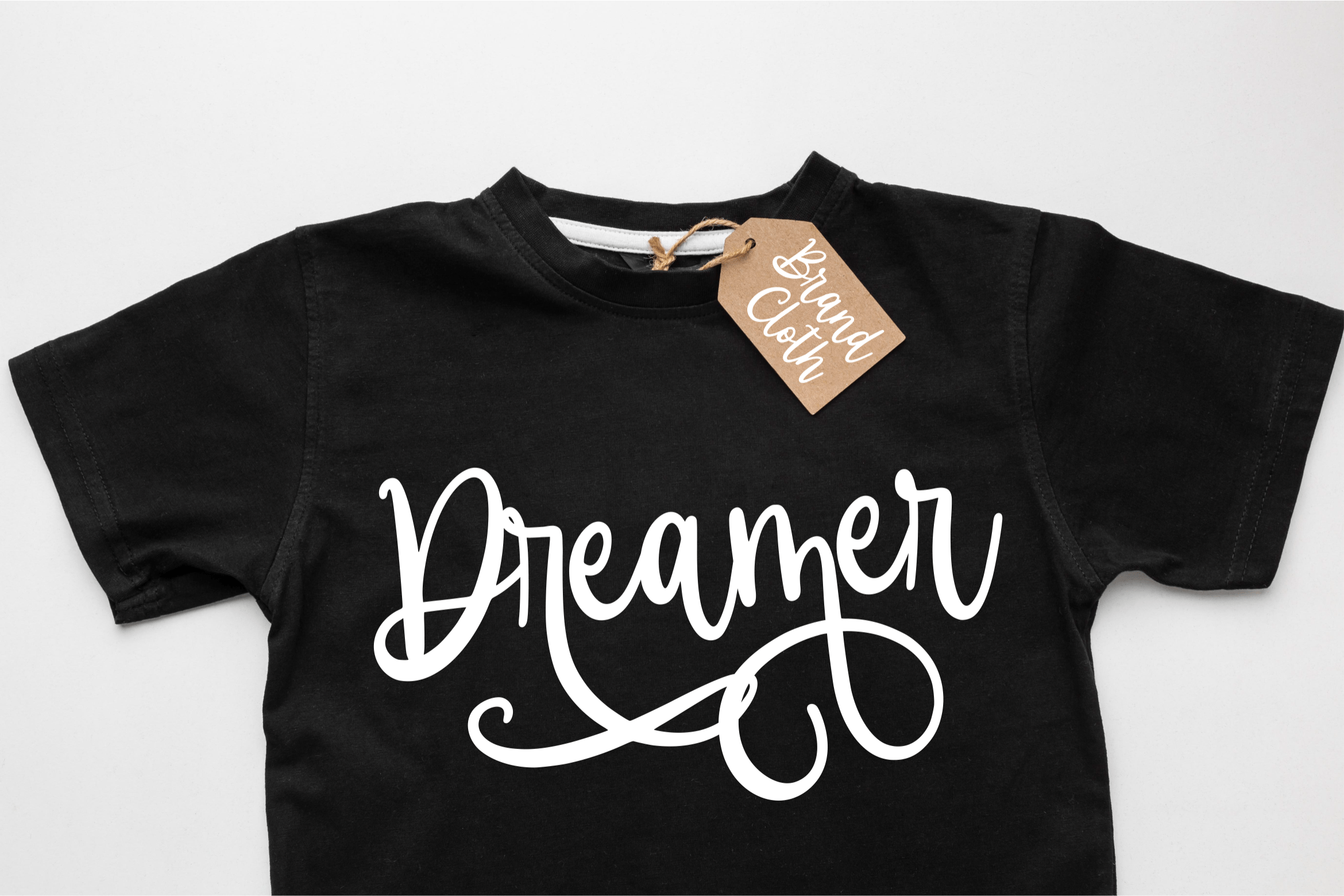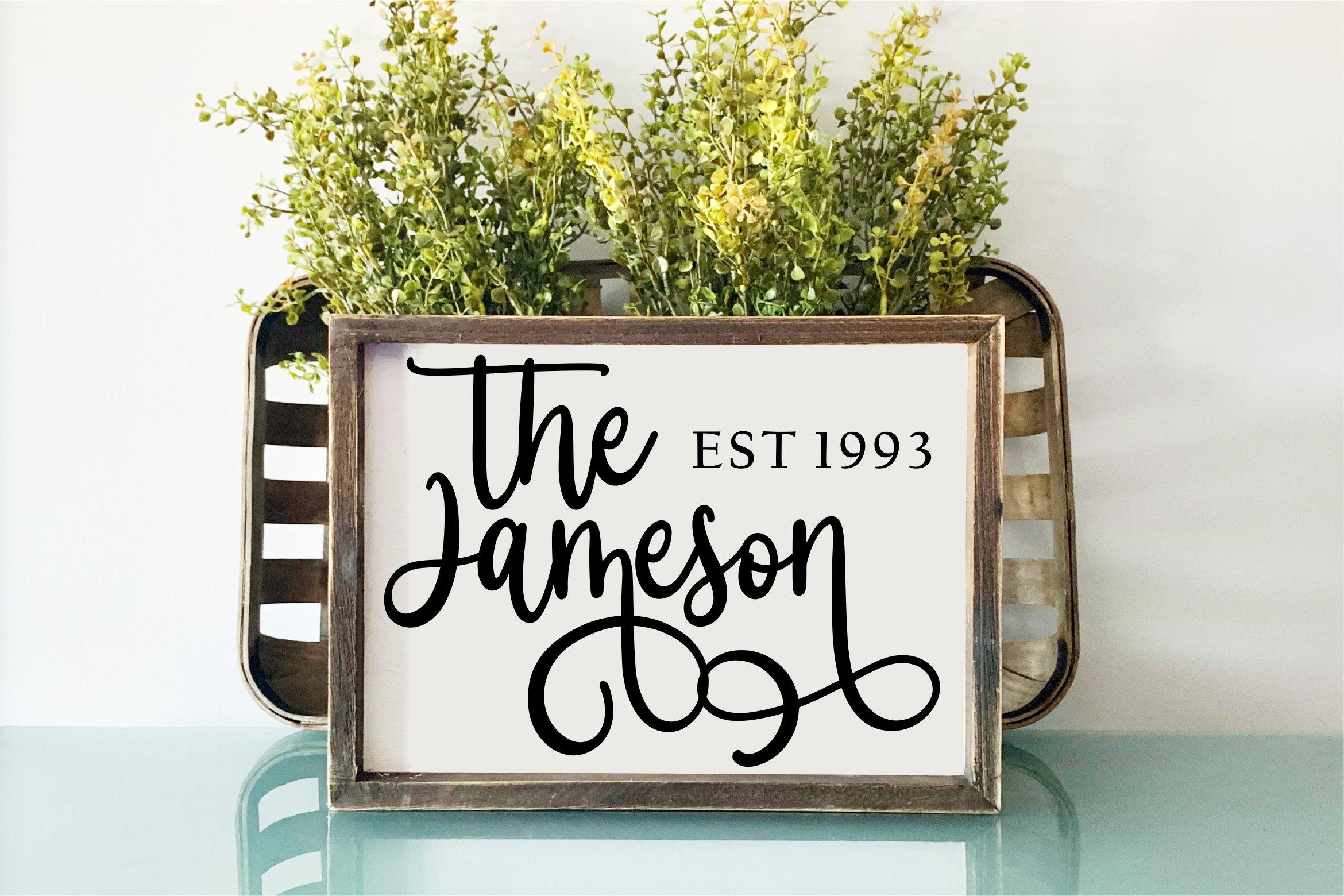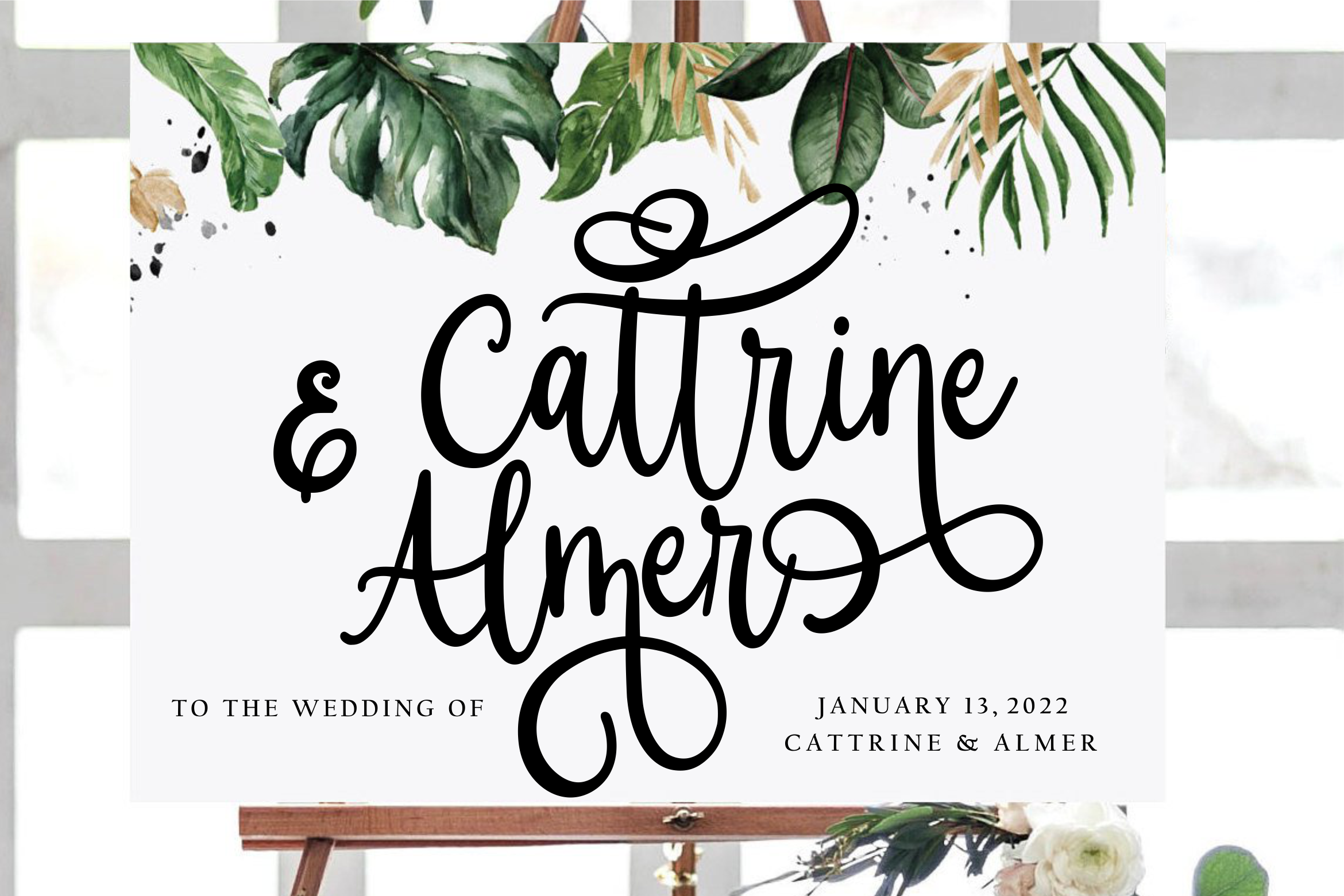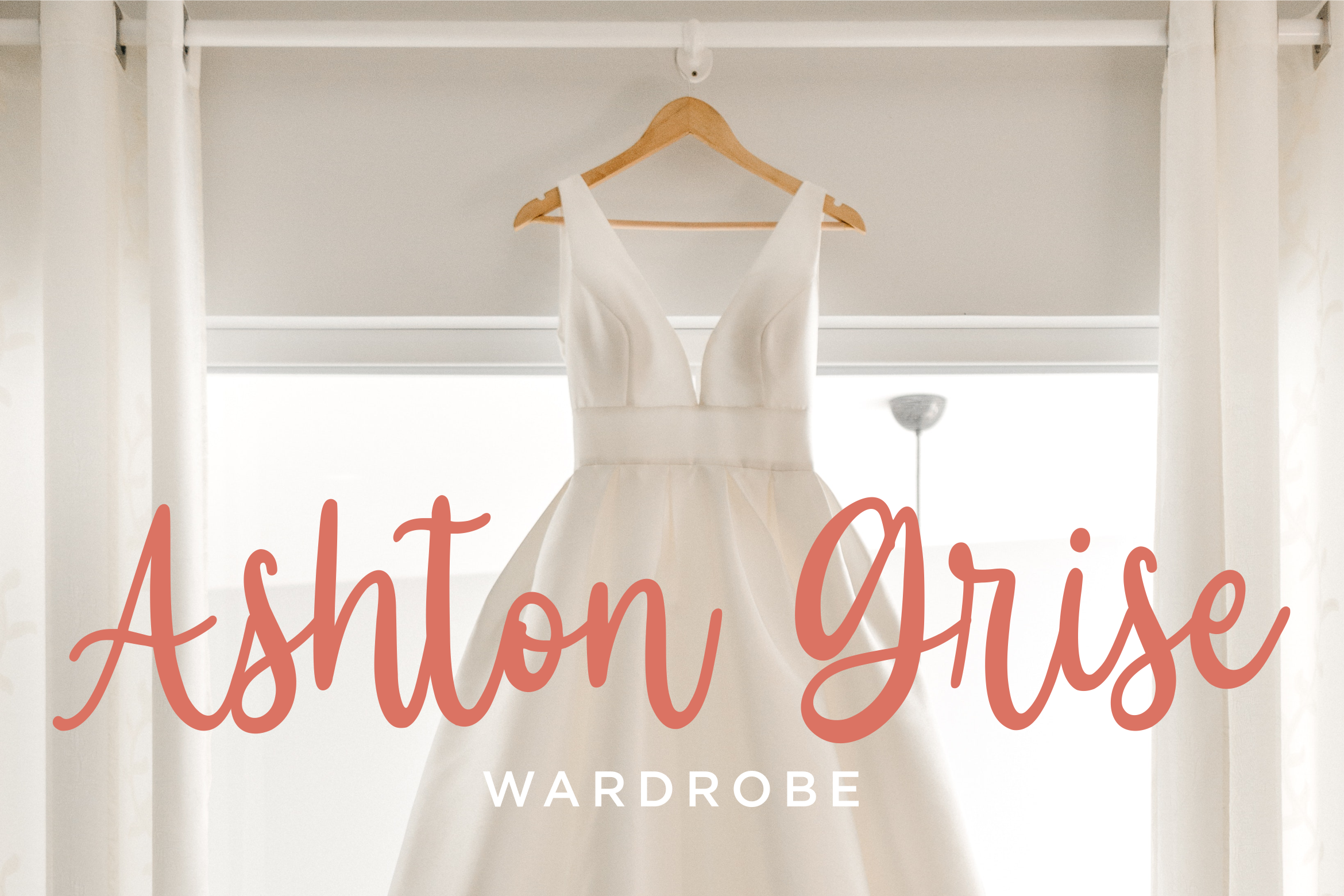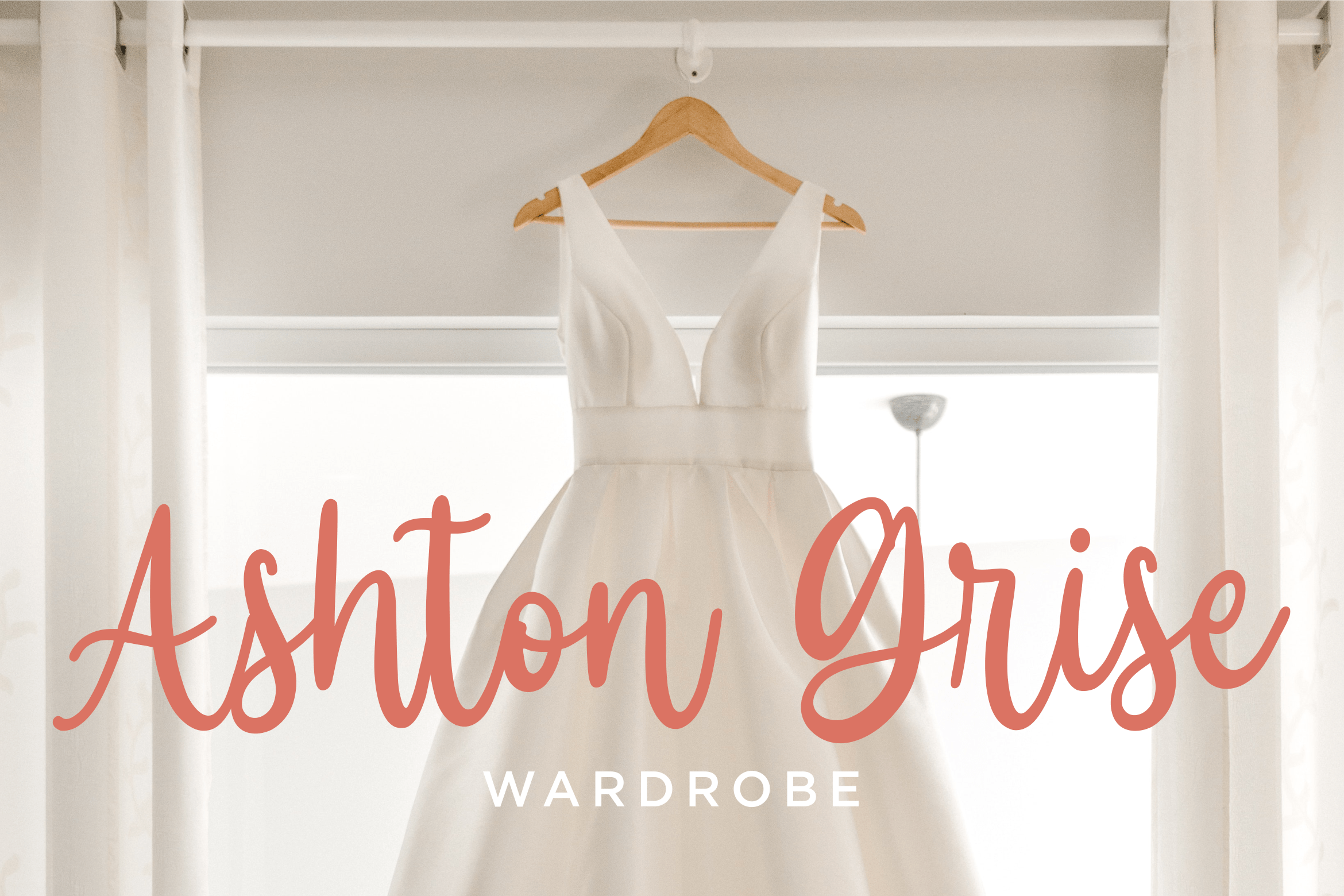
Algisttalleya Script Font
This is perfect for product packaging, branding project, magazine, social media, weddings, or just used to express words above the background.